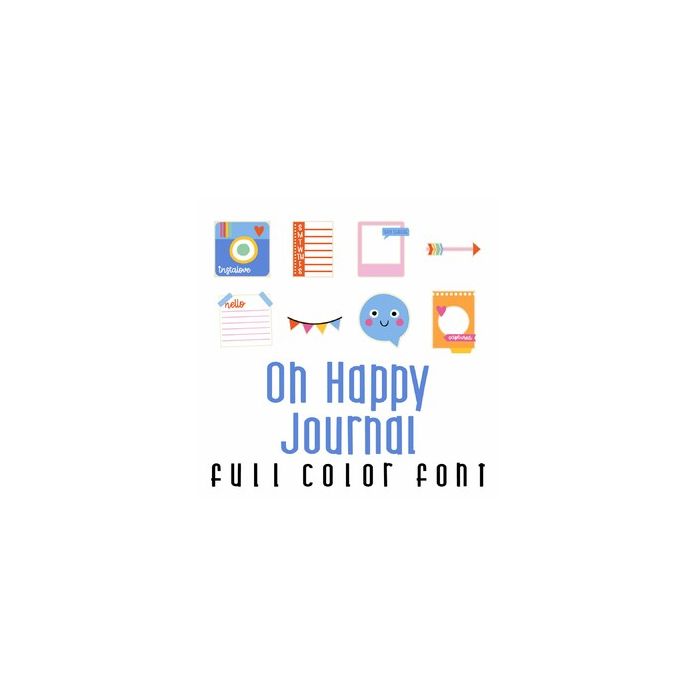
This adorable full color doodlebat font features fun journaling images and frames. Perfect for cards, crafts, gifts, decor, scrap book pages, planner stickers and more!